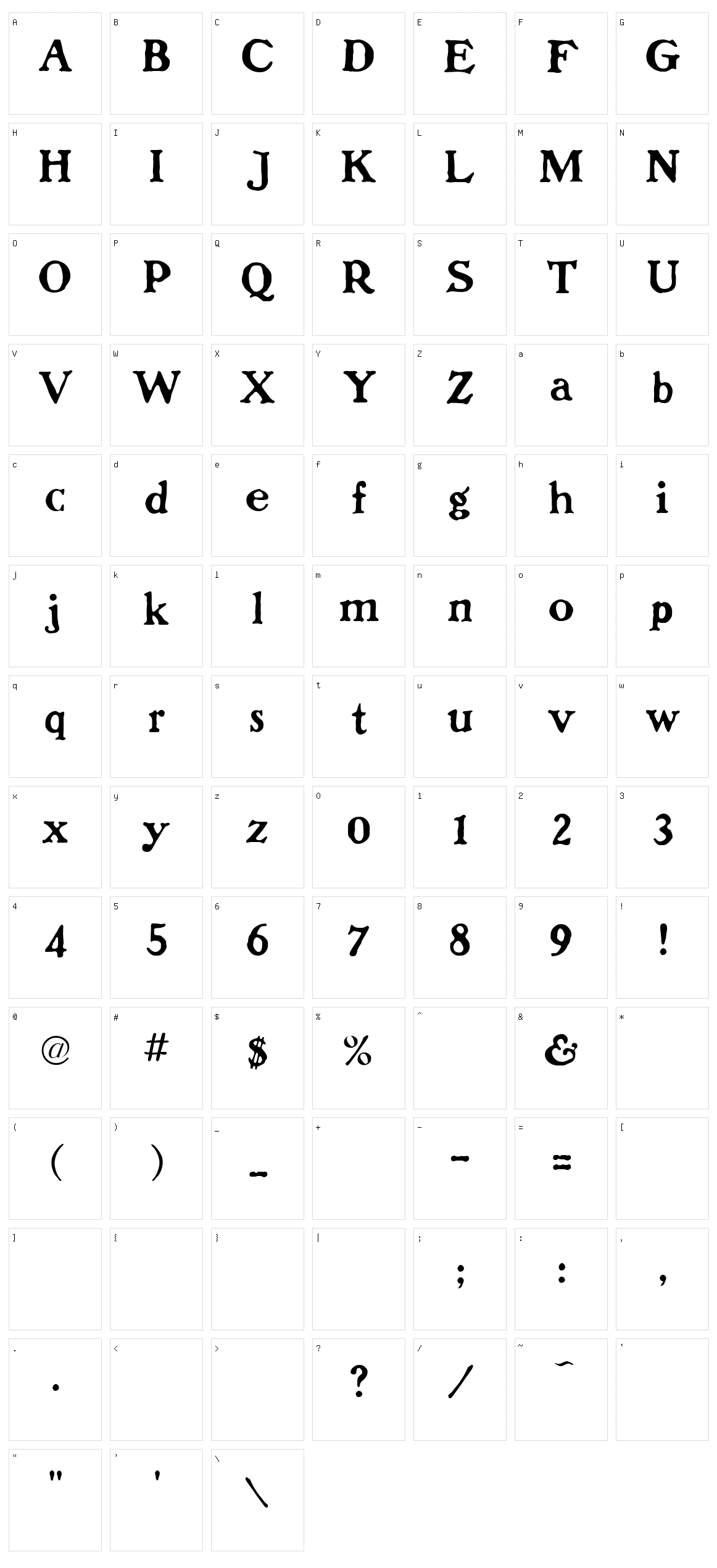
The free font Dolenzo J is carefully designed by Julius B. Thyssen, showcasing a thoughtful balance of creativity and usability and falls under the Eroded font style. When you download the ZIP file, it contains only 63.46 KB of font files, making it lightweight and quick to download. Please review the license details below to understand permitted usage and distribution rights. If license information is not available, we recommend using this font for personal projects only or contacting the author directly for commercial usage permissions.